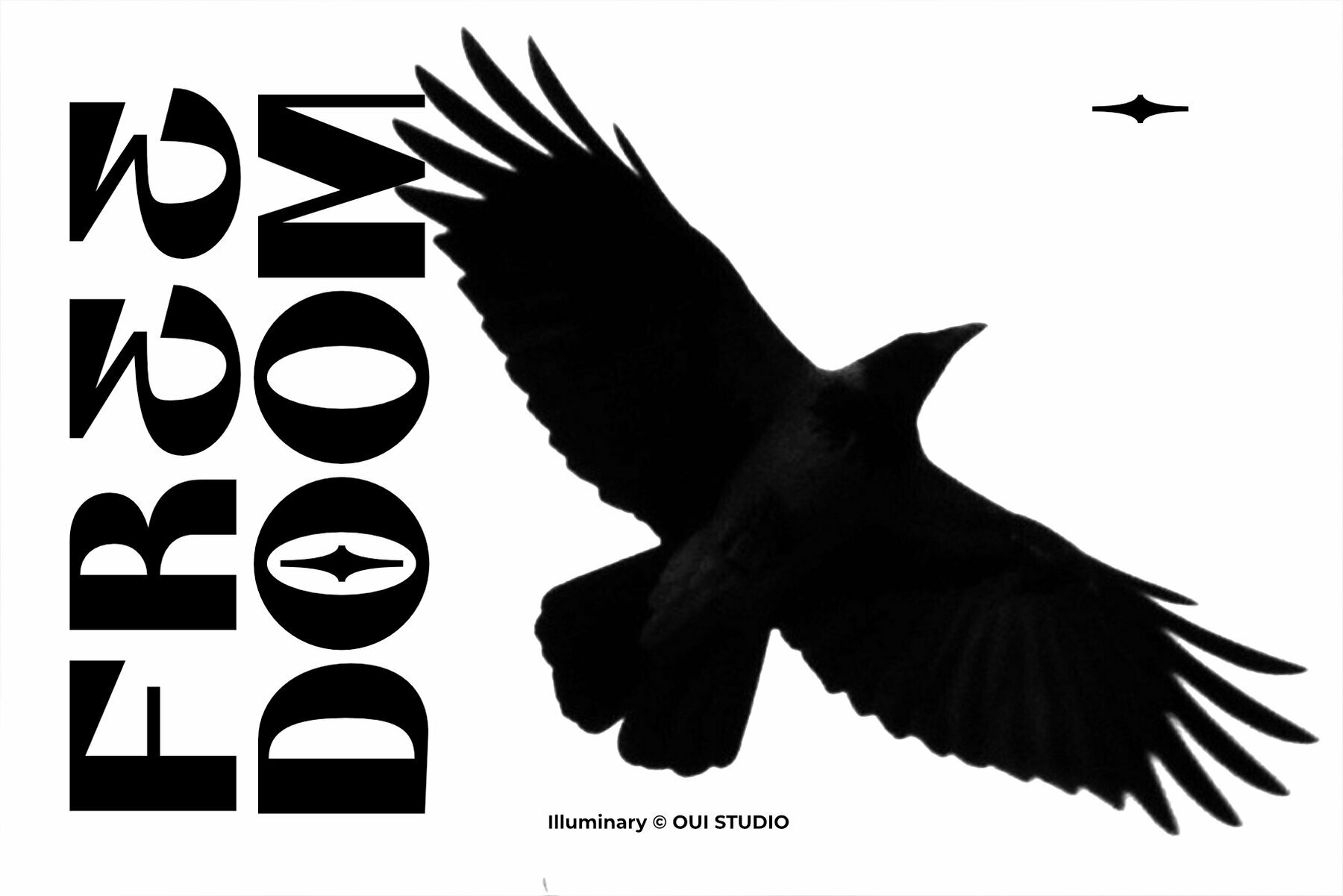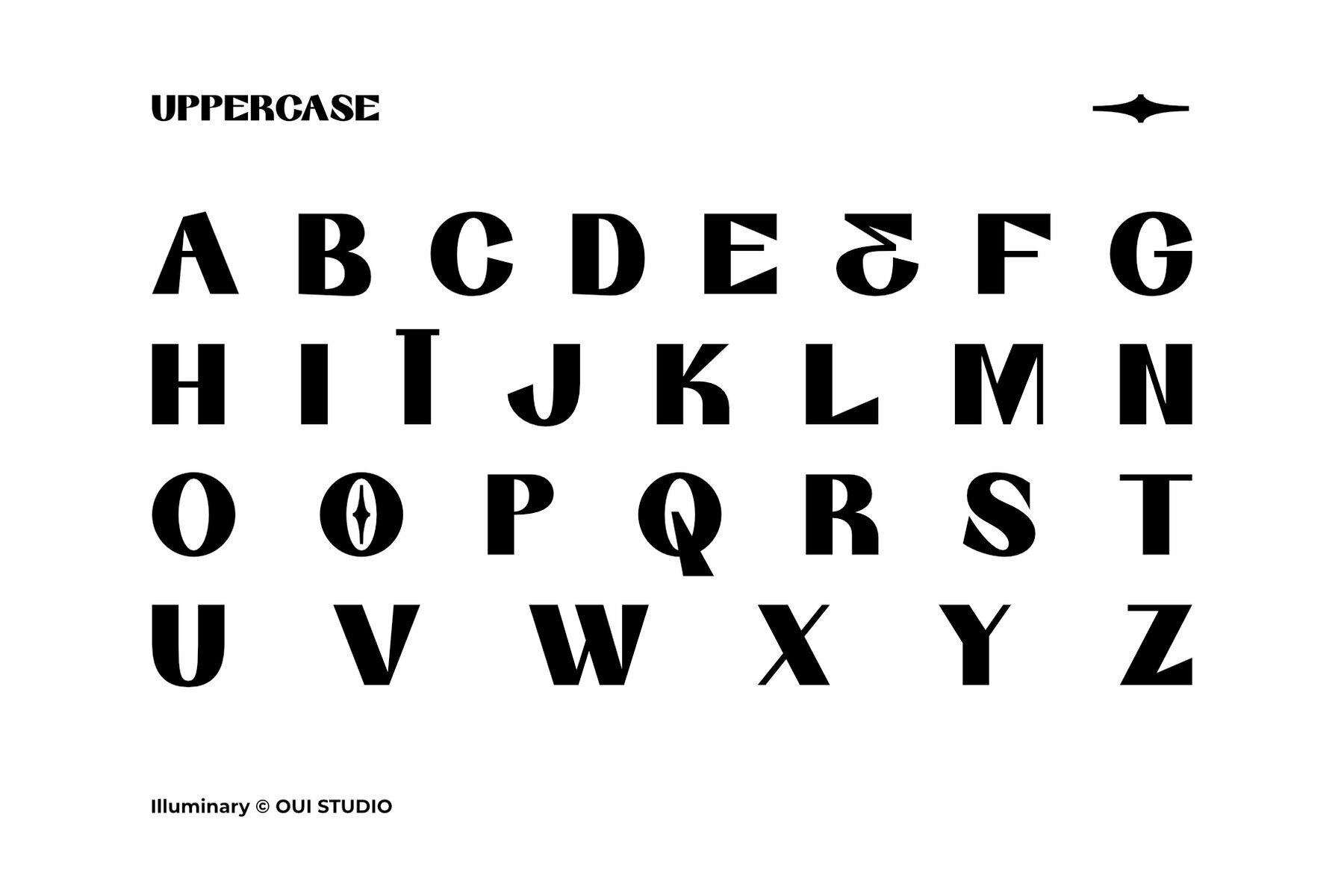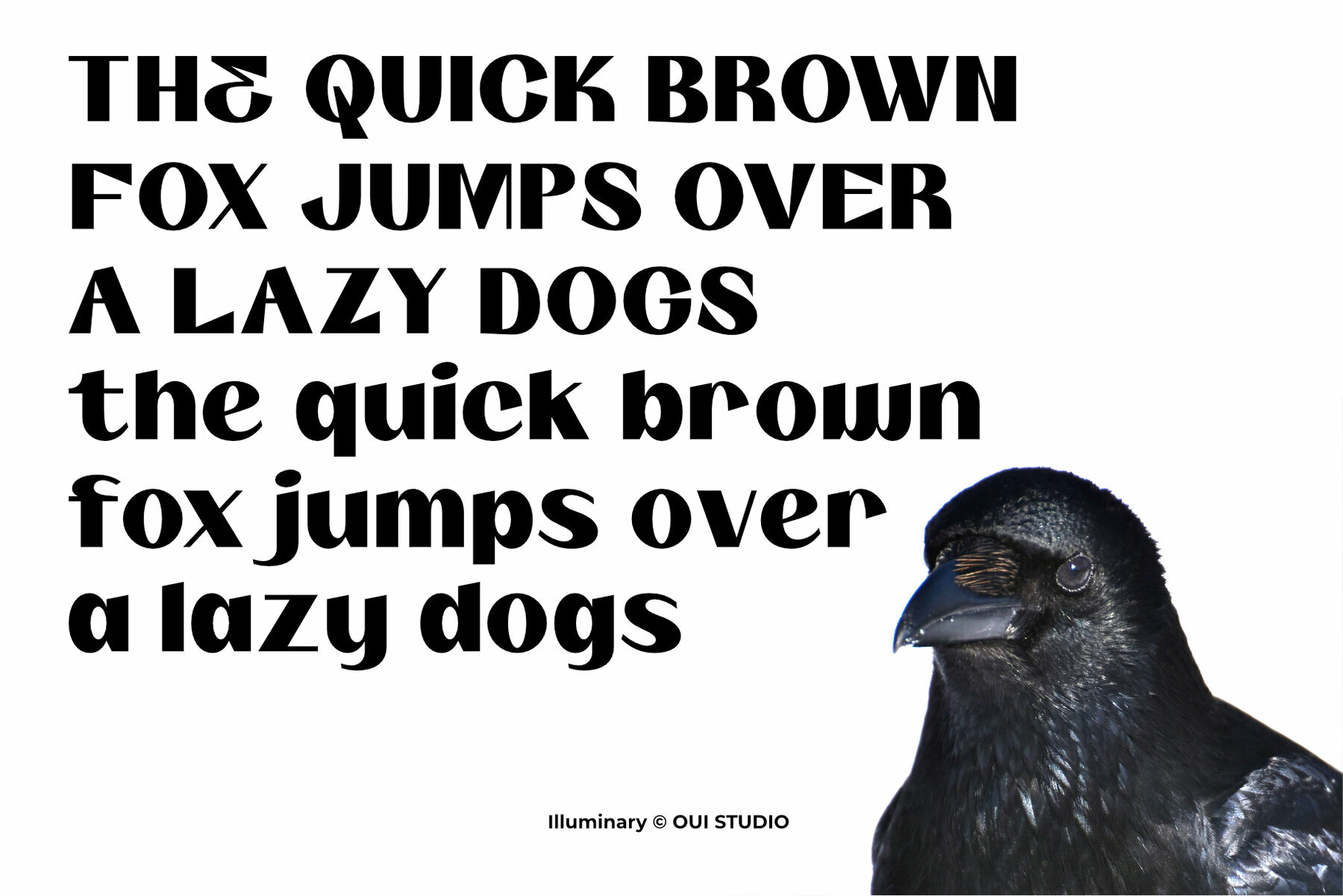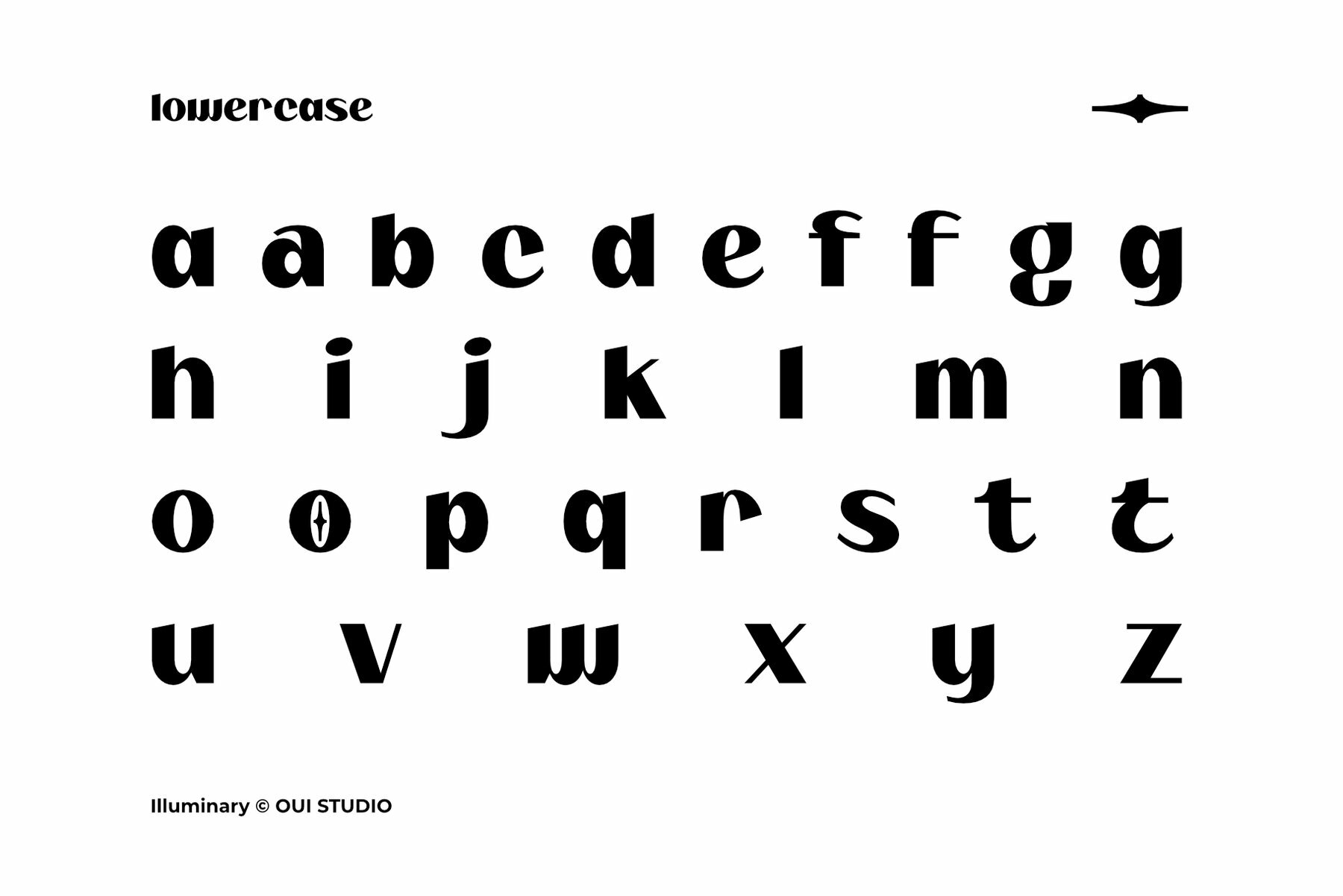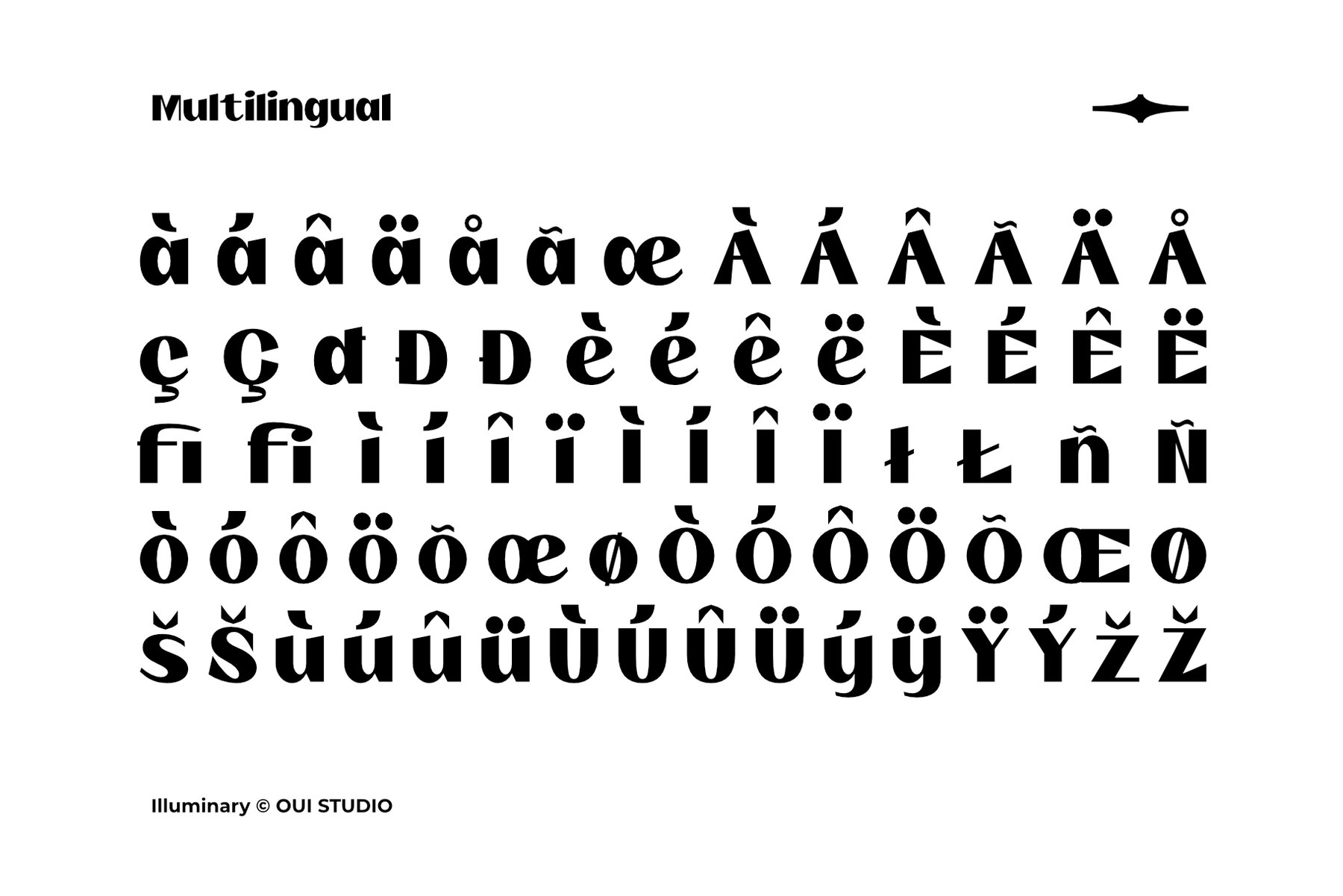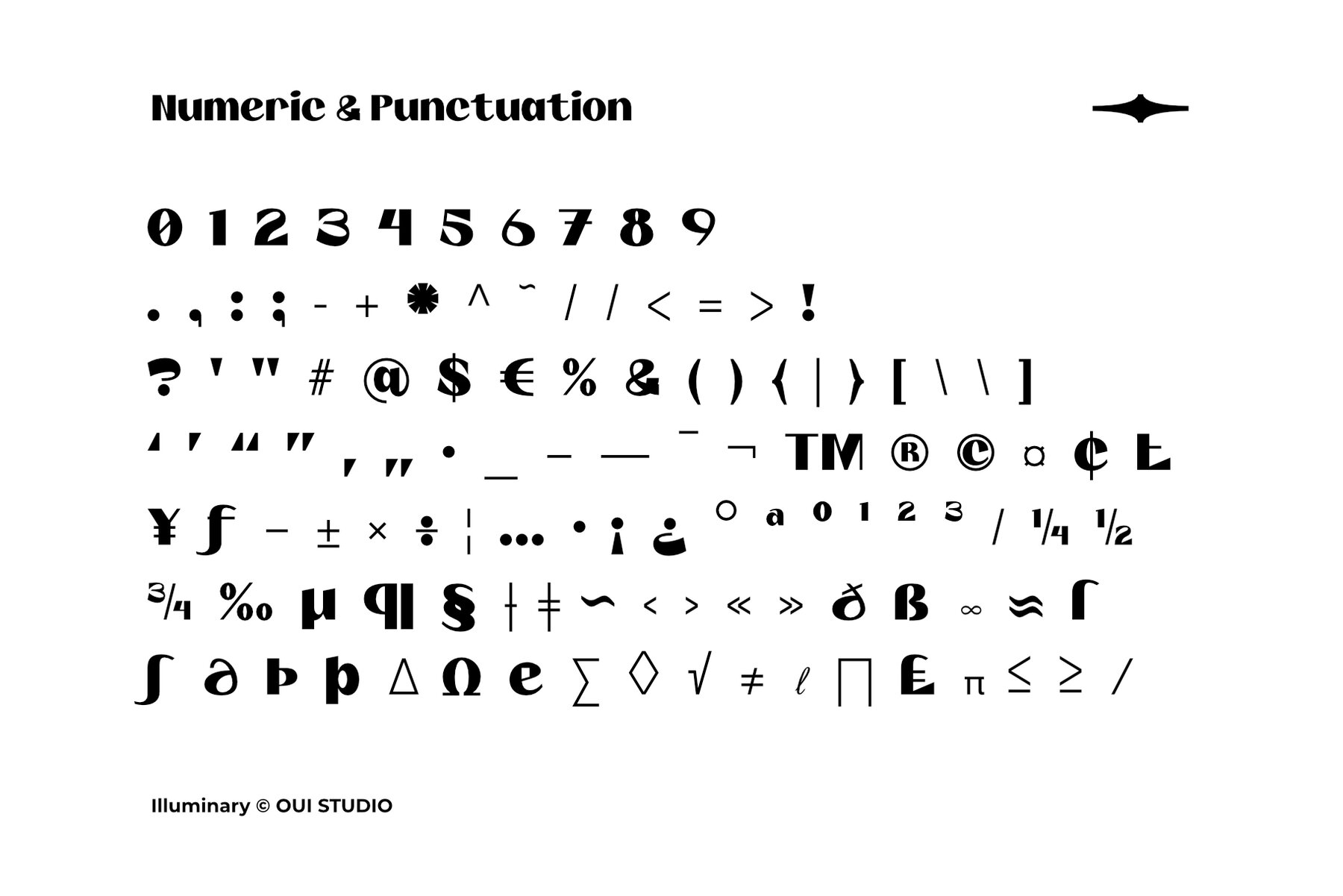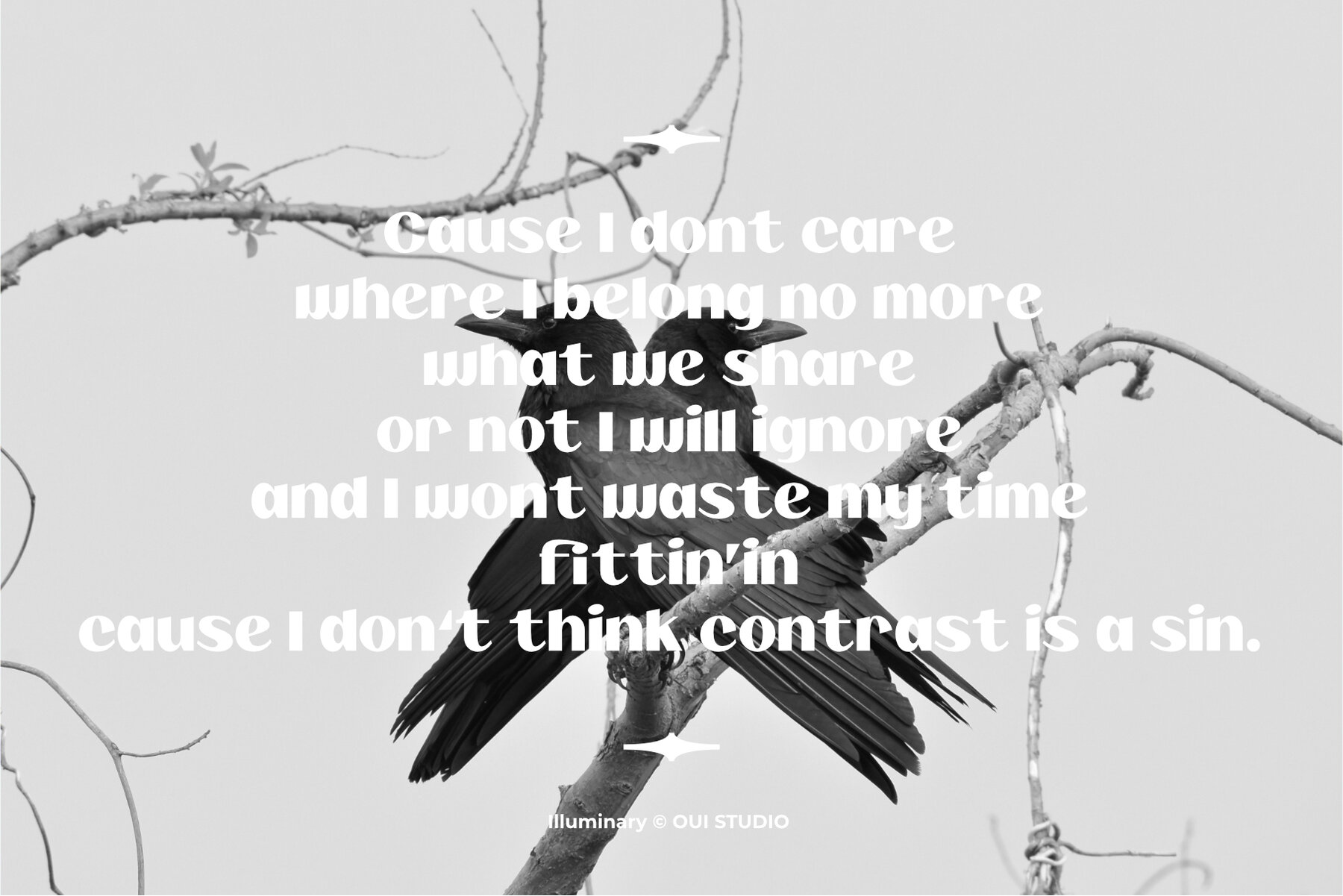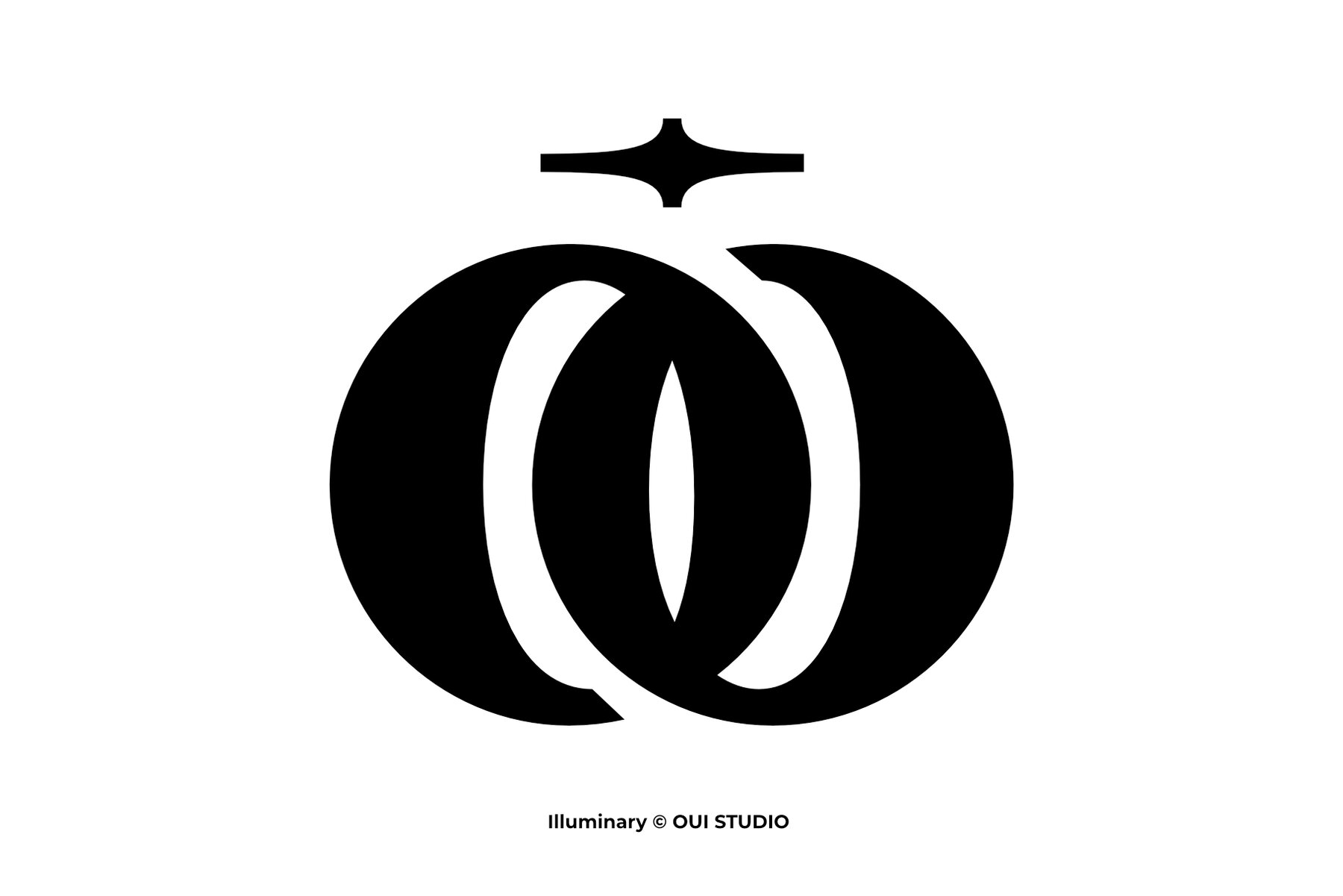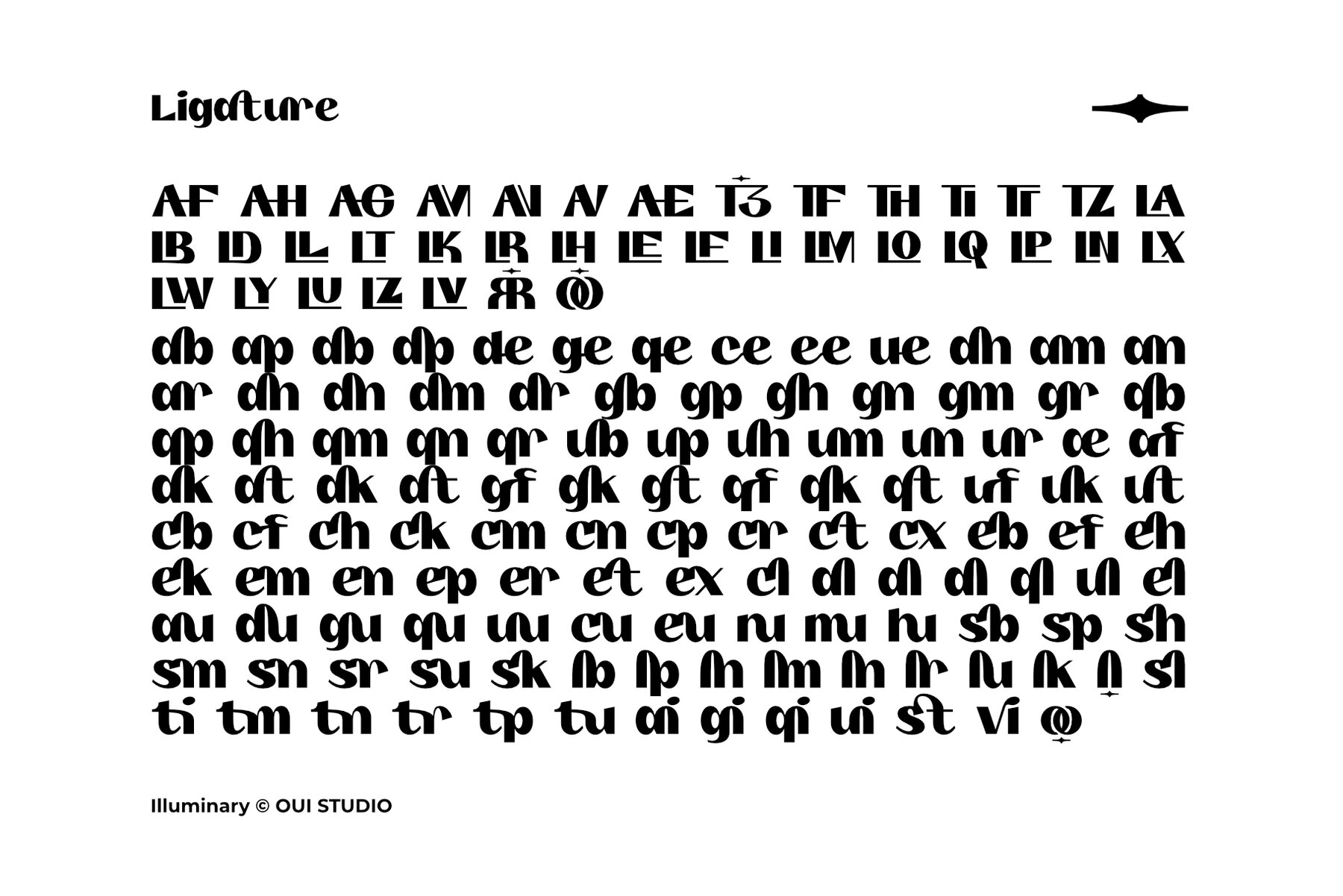
Illuminary Font
Illuminary Regular
The arrival of Illuminary brings a fresh perspective to modern typography. This clean sans serif font is meticulously designed to integrate with various creative applications, from branding and logos to packaging and apparel. Its contemporary style elevates any design approach, giving your projects a distinct edge.Illuminary: Modern Sans Serif for Creative Projects